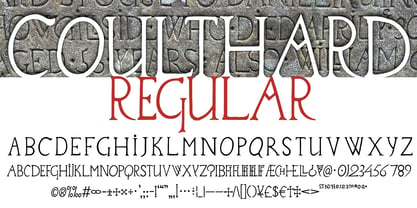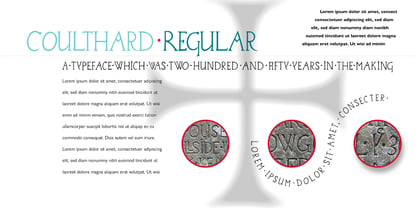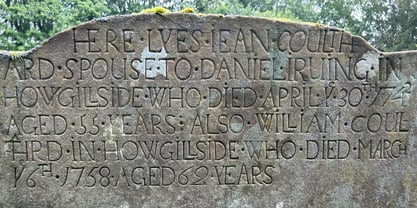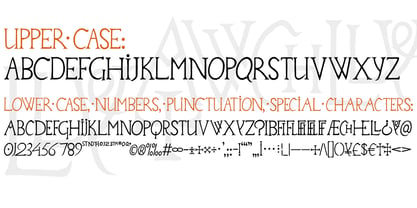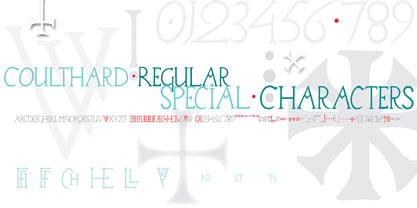
Coulthard
by Rocket 88 Foundry
The Coulthard Font Family was designed by Patrick Molloy and published by Rocket 88 Foundry. Coulthard contains 1 styles. More about this family
Coulthard was inspired by an 18th Century gravestone in an English country churchyard, spotted by fine artist Colin Blanchard and posted by him on Facebook, along with several linocuts of some of the letterforms. Colin wondered if it would be possible to turn his side project into a working typeface. One of Colin's Facebook longtime followers, Patrick Molloy read the post, looked at Colin's photo of the headstone and Colin's carved letterforms and realised that, yes, this was a project which deserved to be developed into a full digital typeface. So here is the result, Coulthard, named in honour of the family name on the headstone. This is the first weight; a bold version will follow and then, two further versions which will reimagine what the just carved lettering on the pristine gravestone would have looked like. This is a collaboration of three likeminded artists, spanning 250 years.
Designers: Patrick Molloy
Foundry: Rocket 88 Foundry